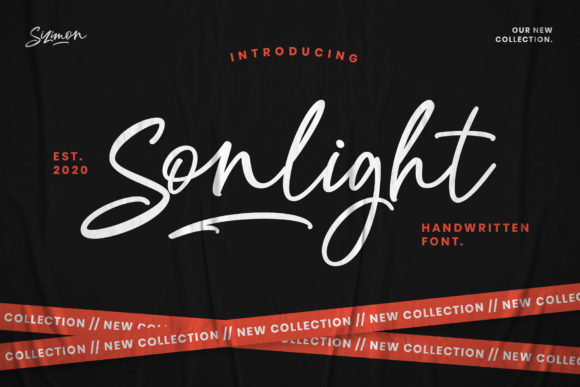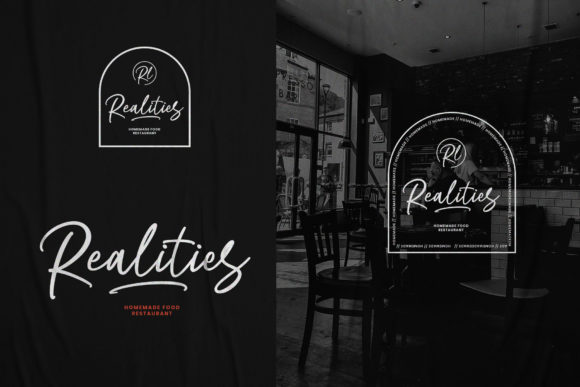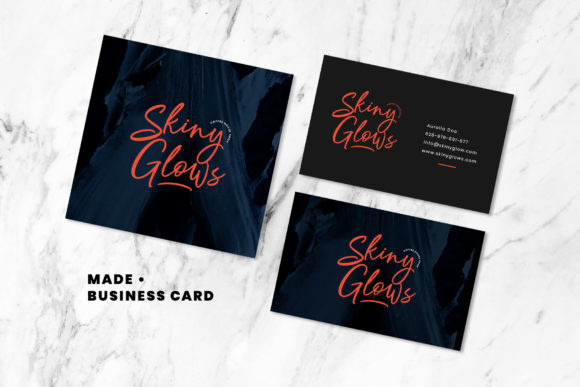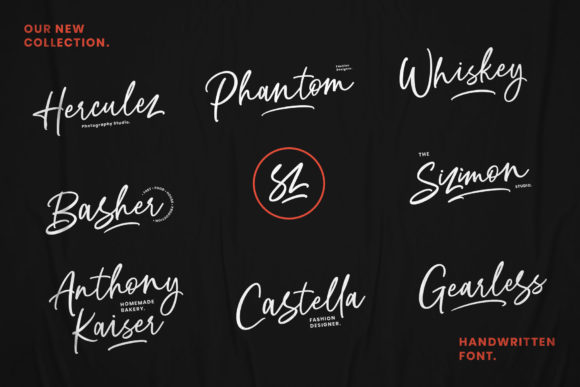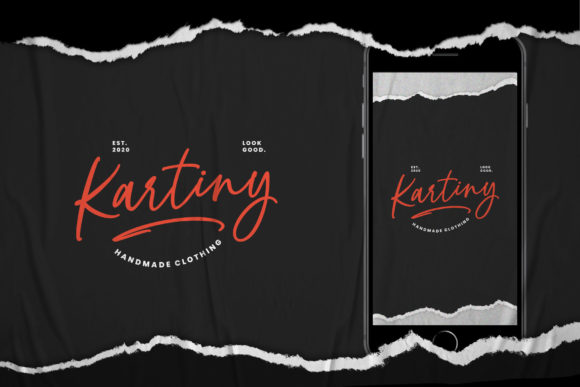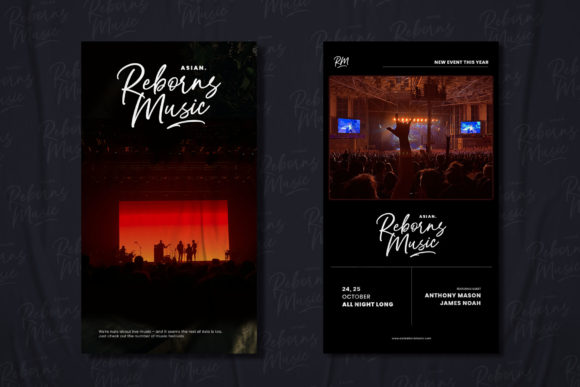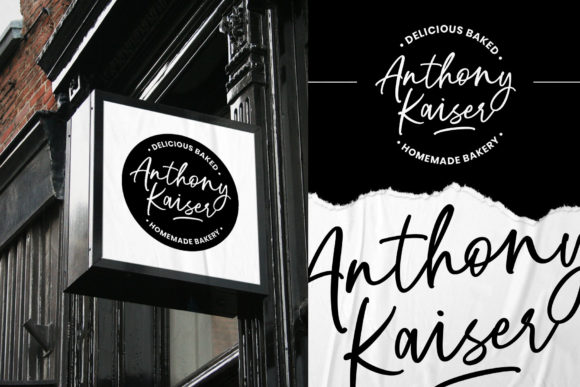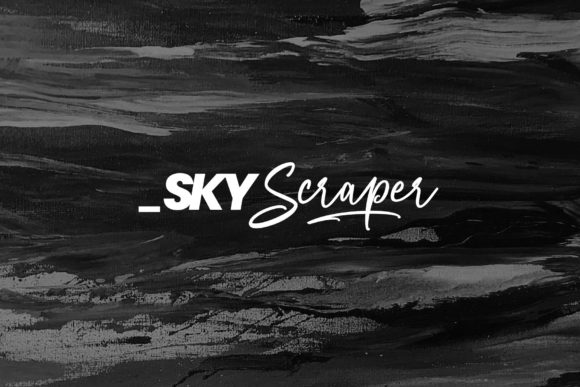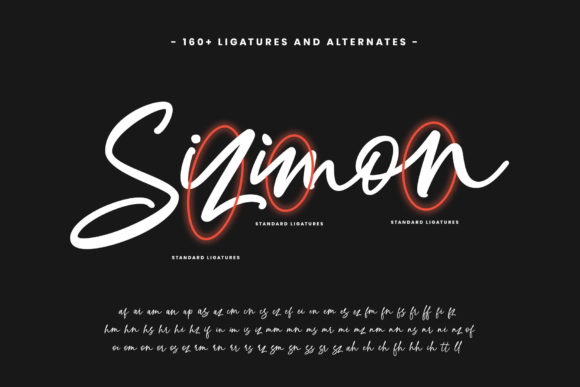
Sonlight Font
About Sonlight Font
Sonlight is a classy, contemporary and unique handwritten font. It features a varying baseline, smooth lines, gorgeous glyphs and stunning alternates. Fall in love with its incredibly versatile style and use it to create gorgeous wedding invitations, beautiful stationary art, eye-catching social media posts, and much more!